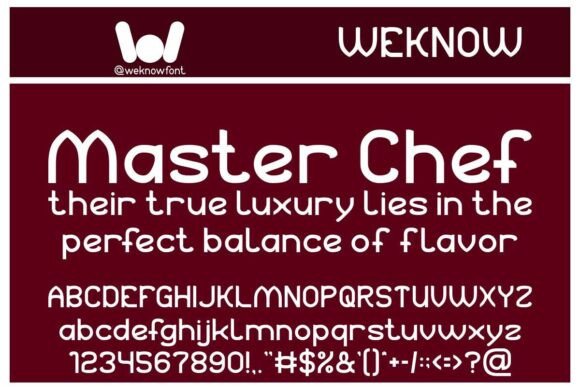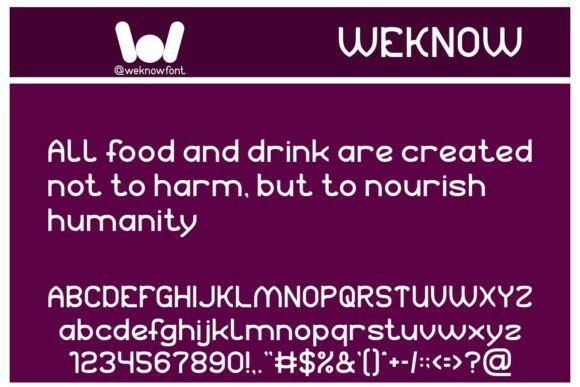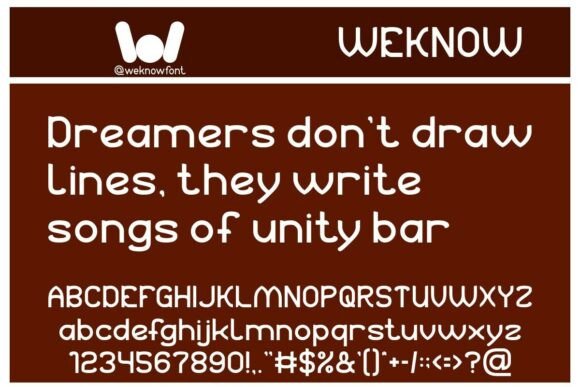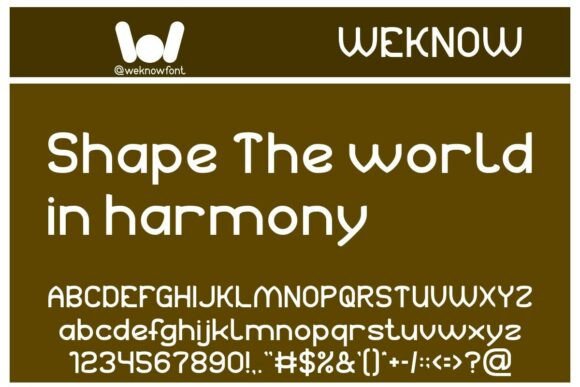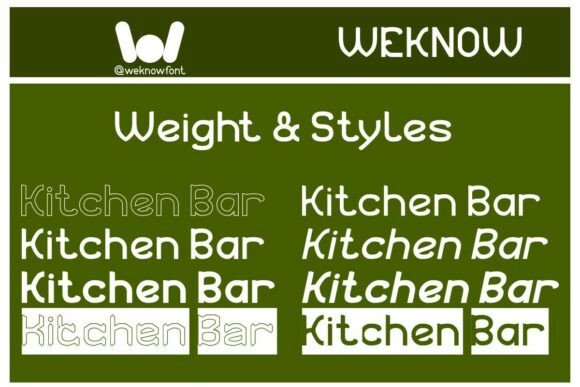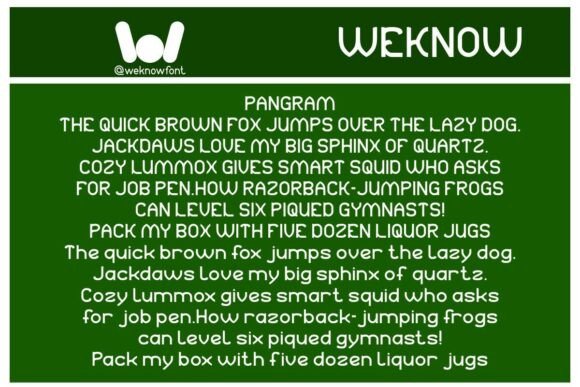
Unleash the Power of Kitchen Bar Font
Remember the thrill of discovering a new font that perfectly captures the essence of your creative vision? For designers, this moment is pure magic. And, it’s exactly what happens when you come across the Kitchen Bar Font – a symphony of typeface that elevates your designs to new heights.
This versatile sans serif font is a masterclass in blending nostalgia and modernity, making it an ideal pick for a wide range of applications, from logos and headlines to corporate identities and brand marks. Its striking attributes and captivating style make it a valuable addition to any designer’s toolkit, amplifying the impact of their creative ventures across print and digital platforms.
Kitchen Bar Font Key Features
- Font Family: Kitchen Bar is a sans-serif font family, designed to be clean, modern, and highly legible.
- Character Set: The font family includes a wide range of characters, including Latin, Cyrillic, and Greek alphabets, making it suitable for global applications.
- Unique Characteristics: The font features a unique blend of modern and vintage elements, with a distinctive x-height and a range of subtle flair and flair variants.
Kitchen Bar Font Review
Overall, I think Kitchen Bar Font is a decent choice for your next project, especially when it comes to displaying food-related content. Here are some of the things that I think work well: ✨
- Legibility: Kitchen Bar Font is quite easy to read, even at smaller font sizes.
- Playfulness: The font’s design gives off a fun and casual vibe that’s perfect for food blogs or restaurants.
- Coverage: It comes in a range of weights, from light to bold, which can be helpful for creating visual hierarchies in your content.
- Consistency: Some users have reported that the font’s spacing and alignment can be inconsistent across different devices and browsers.
- Support: While the font is generally well-supported, there have been some reports of issues with certain special characters and languages.
Overall, I’d say that Kitchen Bar Font is a solid choice for projects where you want a fun, casual vibe. Just be sure to test it thoroughly to make sure it meets your needs.
For the most out of the Kitchen Bar Font, use it for signage, labels, and headings in your kitchen or bar-themed designs. It’s ideal for creating a cohesive look and feel in your branding.
Alternatives to Kitchen Bar Font
Playfair Display is a luxurious, high-end serif font perfect for creating a sophisticated atmosphere. It features elegant connections between letters and ornate details. When to use: High-end branding, luxury products, and elegant invitations.
Comparison: Unlike Kitchen Bar Font, which has a casual, rustic feel, Playfair Display exudes refinement and sophistication, making it a better choice for formal or high-end designs.
Great Vibes is a modern, elegant script font ideal for creating a sense of luxury and refinement. It features flowing connections between letters and a sophisticated feel. When to use: Luxury branding, high-end products, and elegant invitations.
Comparison: Great Vibes shares similarities with Kitchen Bar Font in its elegant feel, but it has a more refined and polished appearance, making it a better choice for formal or high-end designs.
Lato is a modern sans-serif font perfect for creating a clean and sophisticated atmosphere. It features a minimalist design with a high level of legibility. When to use: Modern branding, digital products, and minimalist designs.
Comparison: Unlike Kitchen Bar Font, which has a more rustic feel, Lato is a clean and modern font, making it a better choice for digital or minimalist designs.
Anton
Anton is a modern sans-serif font featuring a geometric design with a high level of legibility. It’s perfect for creating a clean and sophisticated atmosphere. When to use: Modern branding, digital products, and minimalist designs.